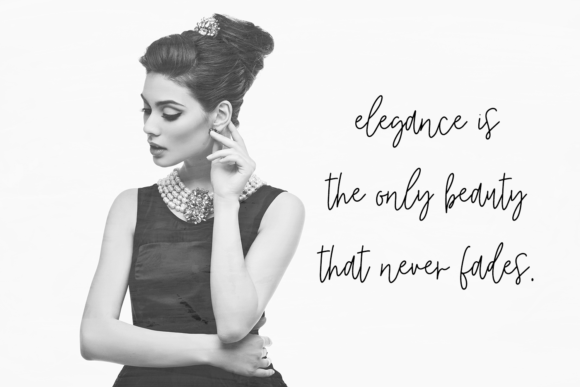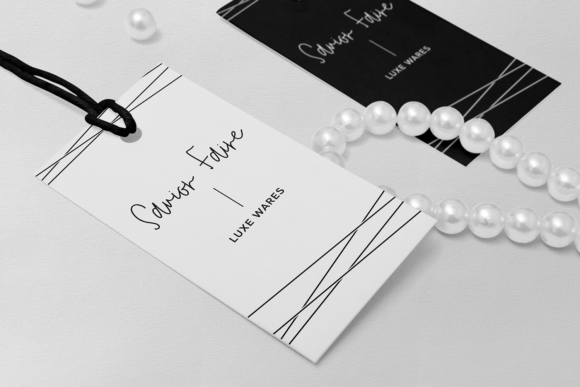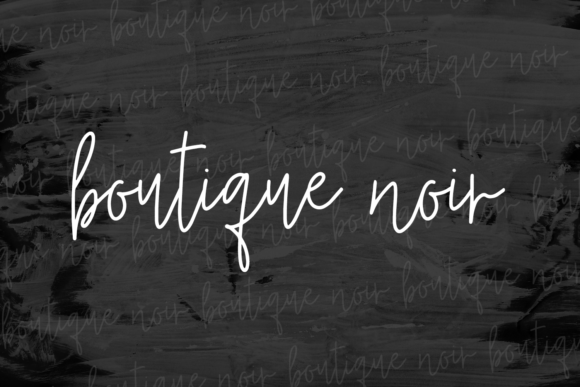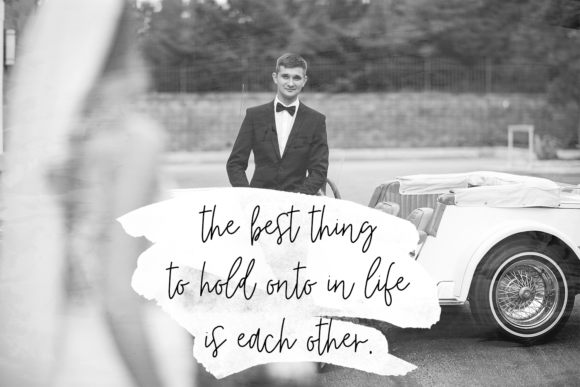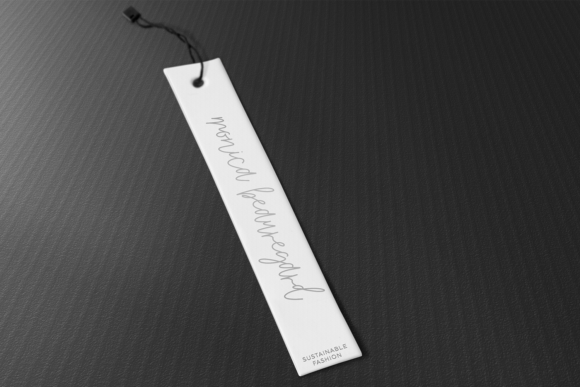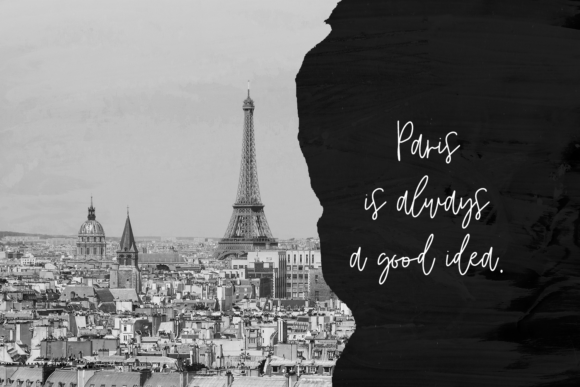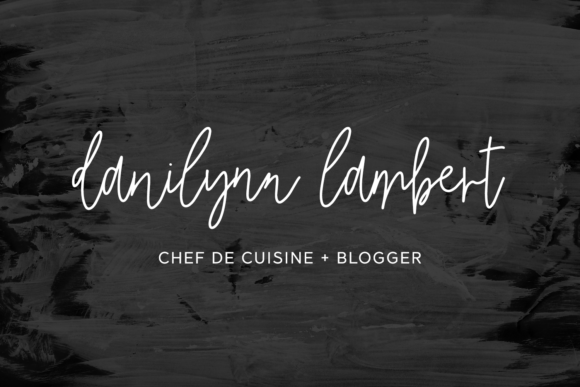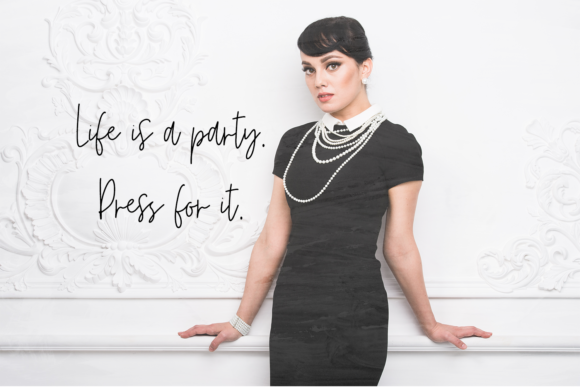
Affaire De Coeur Font
Affaire de Coeur simplifies elegance into one truly outstanding handwritten font. This font will appeal to a wide range of crafty ideas, from letterheads and titles, to stationery.